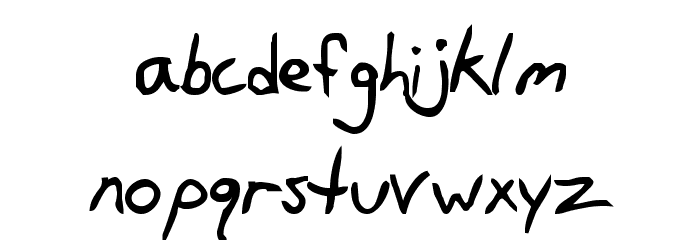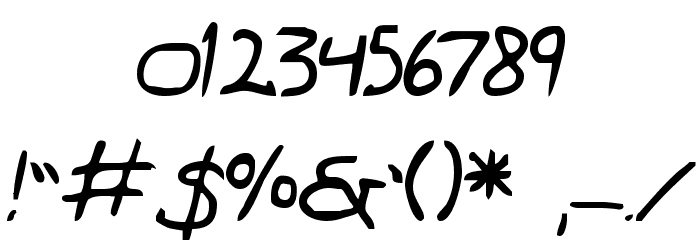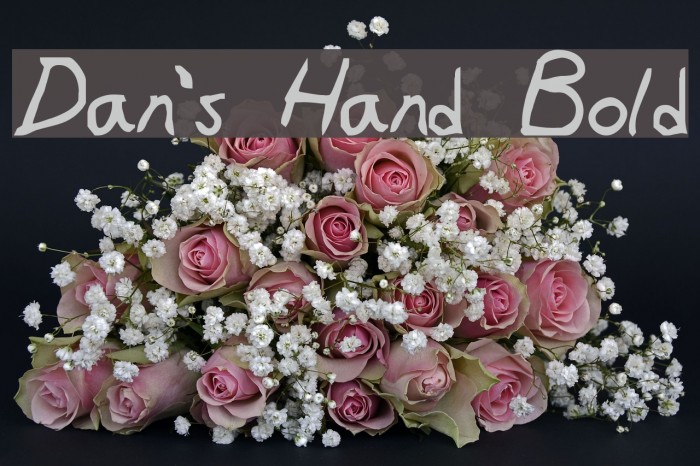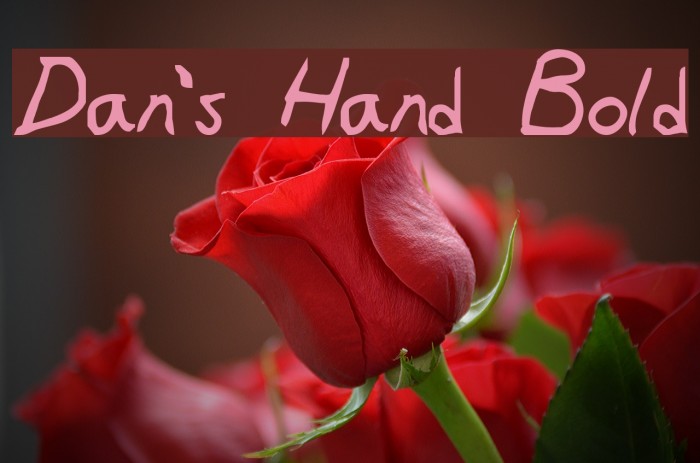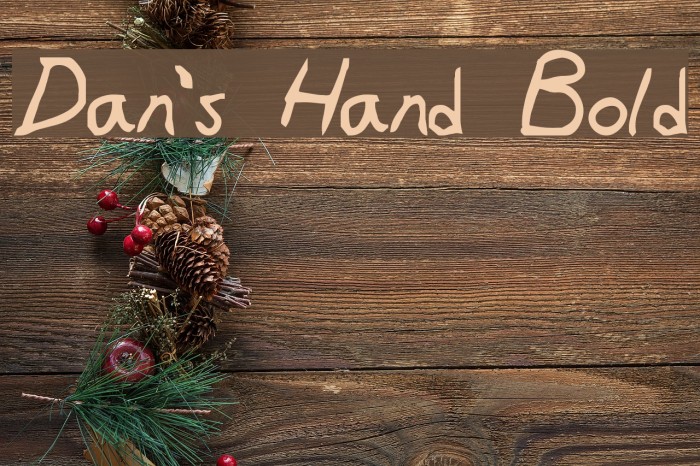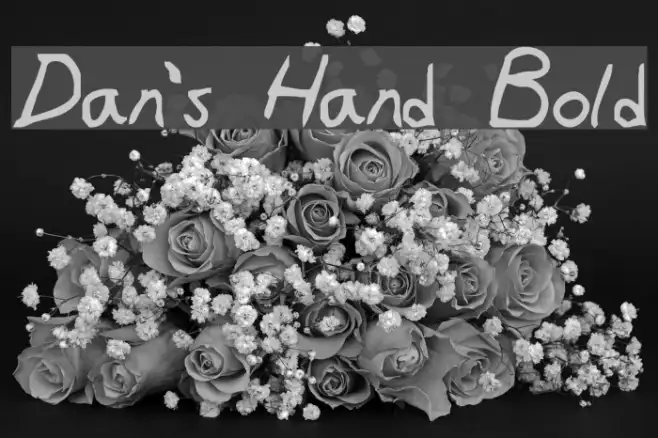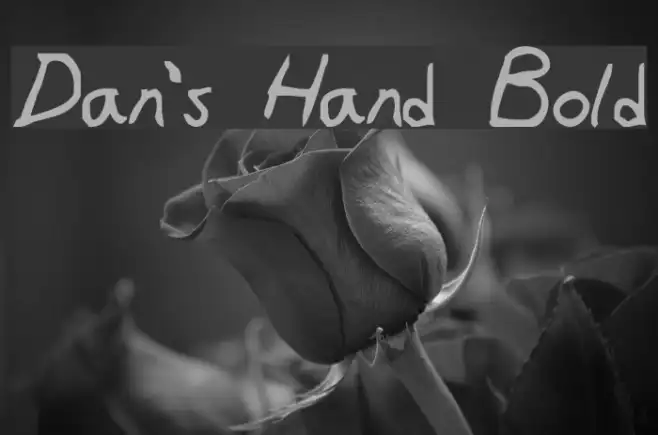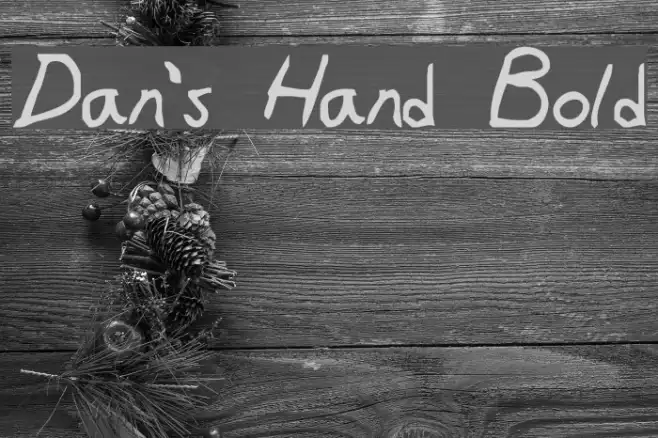
Dan's Hand Bold Font
This font exudes a playful and informal style, reminiscent of casual handwriting. The strokes are bold and slightly uneven, giving it a lively and dynamic appearance. Each character is distinct, with a natural flow that mimics the spontaneity of hand-drawn letters. The uppercase letters are tall and slightly slanted, while the lowercase letters maintain a consistent height, adding to the font's legibility. Numbers and special characters are crafted with the same energetic style, ensuring a cohesive look across all text. This font is perfect for projects that require a personal touch, such as greeting cards, invitations, or playful branding materials.
A bold, handwritten-style font with a playful and informal appearance.
- Proposed Projects: Ideal for greeting cards, invitations, playful branding, and personal projects.
- Overall Style: Playful